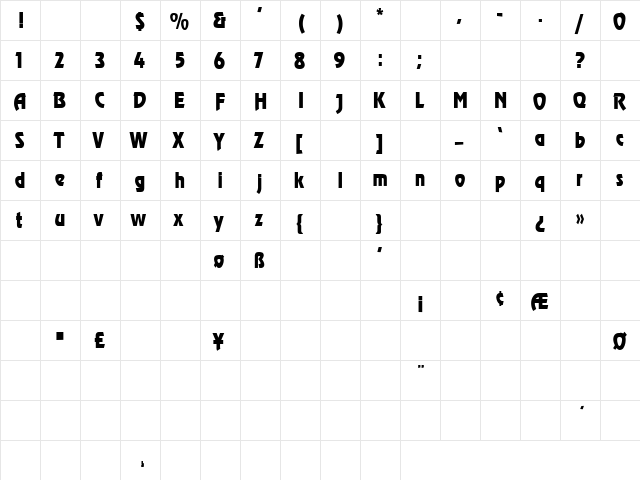
Blue Jeans 11 Regular
Design Context for Blue Jeans 11 Typeface
Blue Jeans 11 takes a measured approach to typography — its balanced proportions and neutral character make it a reliable workhorse for both digital and print work.
Pro Tip: Use Blue Jeans 11 in both headline and body roles to test its range before committing to a single application.